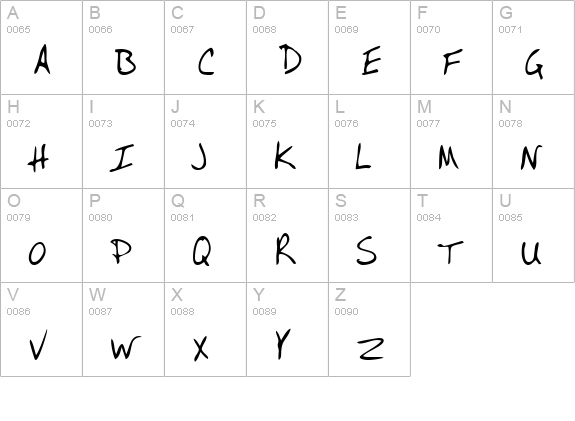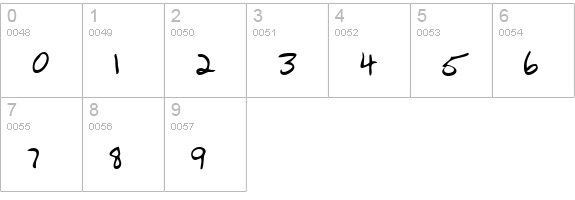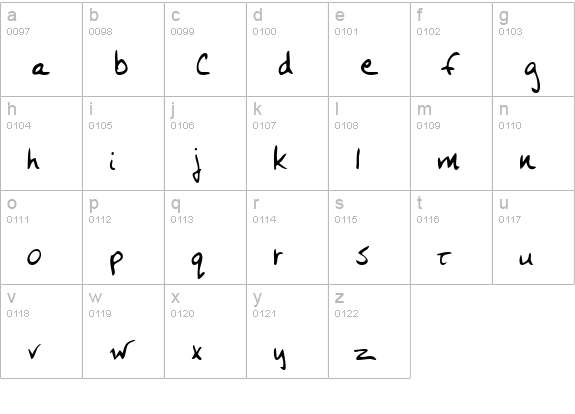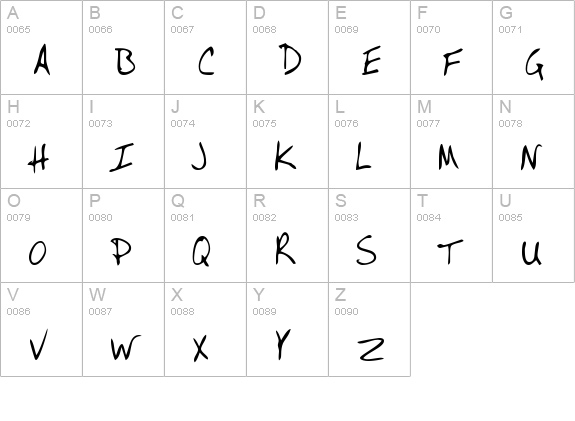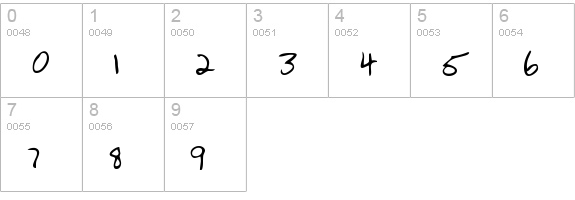
RogersHand Regular Font Details
RogersHand Regular is the standard, neutral variant in the RogersHand typeface family \xE2\x80\x94 well suited to general body text, paragraphs, and standard typographic work.
RogersHand Regular font is a charming and versatile typeface that exudes friendliness and approachability. With its handwritten style and smooth curves, this font is perfect for adding a personal touch to your designs. Whether you're creating invitations, greeting cards, or social media graphics, RogersHand Regular is sure to make your text stand out. The best part? RogersHand Regular is completely free to download at FontsMarket.com. This means you can easily access this delightful font and use it in your projects without any cost. Don't miss out on this fantastic opportunity to enhance your designs with the whimsical charm of RogersHand Regular. Download it today and let your creativity shine!